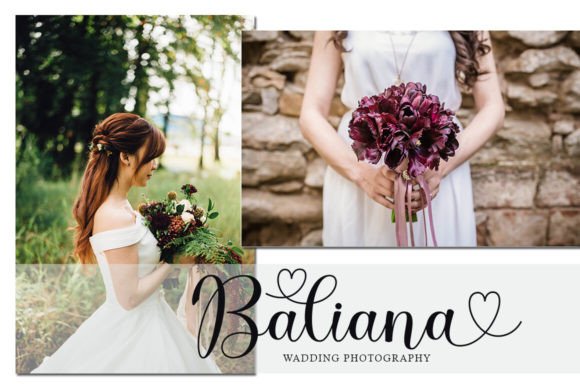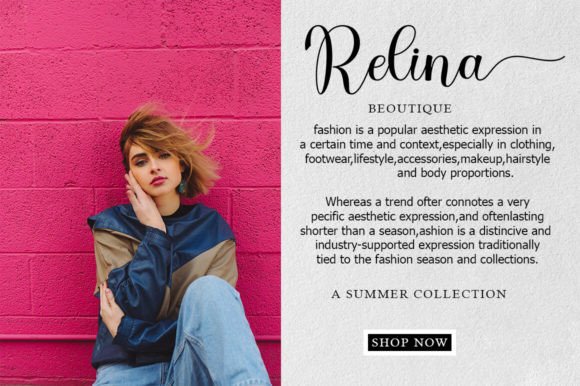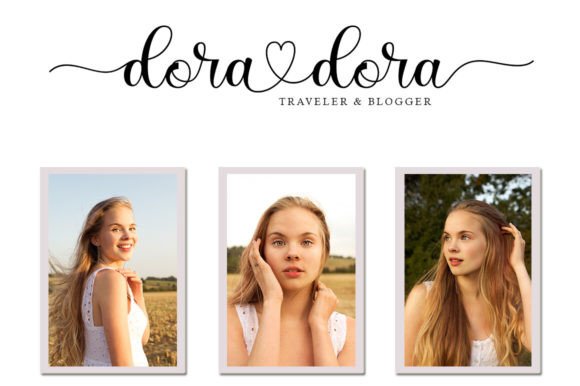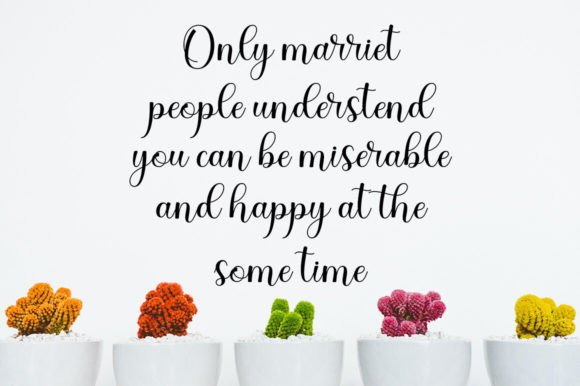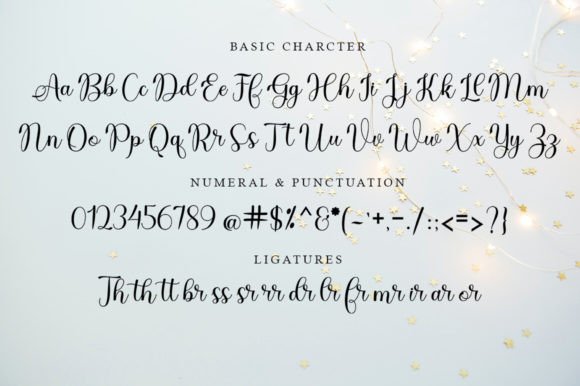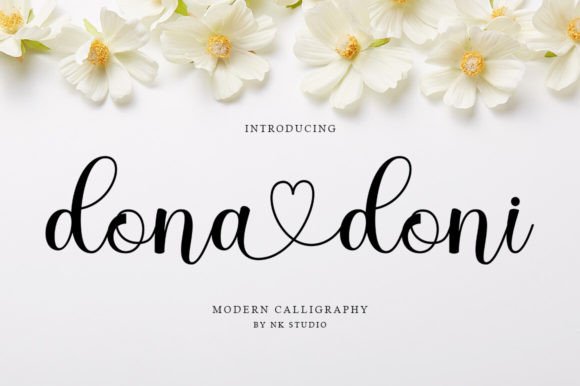
Introducing Dona Doni: The Modern Calligraphy Script Font for Elegant Designs
Are you a designer or crafter looking for a font that exudes elegance and sophistication? Look no further than Dona Doni, a modern calligraphy script font that is perfect for a variety of design projects. With its subtle, handwritten style and 350 glyphs, Dona Doni is the ideal choice for adding a touch of refinement to your branding, packaging, and marketing materials.
A Font that Combines Style and Versatility
Dona Doni is a beautifully crafted font that combines the elegance of traditional calligraphy with the playfulness of modern script fonts. Its subtle, handwritten style makes it perfect for designs that require a touch of sophistication, such as branding projects, homeware design, product packaging, business cards, and invitation cards.
One of the standout features of Dona Doni is its versatility. With 350 glyphs at your disposal, you can create a wide range of designs, from simple and elegant to complex and ornate. Whether you’re looking to add a touch of whimsy to your design or create a more formal, luxurious feel, Dona Doni has got you covered.
Dona Doni is a font that can be used in a variety of design projects, including:
- Branding projects: Use Dona Doni to create elegant and sophisticated logos, business cards, and marketing materials that reflect your brand’s personality and style.
- Homeware design: Add a touch of elegance to your homeware designs, such as stationery, gift tags, and wall art, with Dona Doni’s beautiful script font.
- Product packaging: Make your product packaging stand out with Dona Doni’s stylish and sophisticated font, perfect for luxury brands and high-end products.
- Business cards: Create elegant and professional business cards that make a lasting impression with Dona Doni.
- Invitation cards: Use Dona Doni to create beautiful and sophisticated invitation cards for weddings, parties, and other special occasions.
Easy to Use and Customize
Dona Doni is easy to use and customize, making it perfect for designers and crafters of all levels. Simply download the font and start creating your designs using your favorite design software. With 350 glyphs at your disposal, you can experiment with different styles and combinations to create a unique look that reflects your brand’s personality and style.
Why Choose Dona Doni?
So why choose Dona Doni over other fonts? Here are just a few reasons:
- Elegant and sophisticated: Dona Doni’s subtle, handwritten style makes it perfect for designs that require a touch of elegance and sophistication.
- Versatile: With 350 glyphs, Dona Doni is a versatile font that can be used in a wide range of design projects.
- Easy to use: Dona Doni is easy to use and customize, making it perfect for designers and crafters of all levels.
- High-quality: Dona Doni is a high-quality font that is designed to deliver exceptional results in your designs.
| Font Name | Dona Doni Font |
| Author | Nk Studio |
In conclusion, Dona Doni is a modern calligraphy script font that is perfect for designers and crafters looking to add a touch of elegance and sophistication to their designs. With its subtle, handwritten style, 350 glyphs, and versatility, Dona Doni is the ideal choice for a wide range of design projects. Whether you’re looking to create elegant branding materials, sophisticated product packaging, or beautiful invitation cards, Dona Doni is the perfect font for the job.